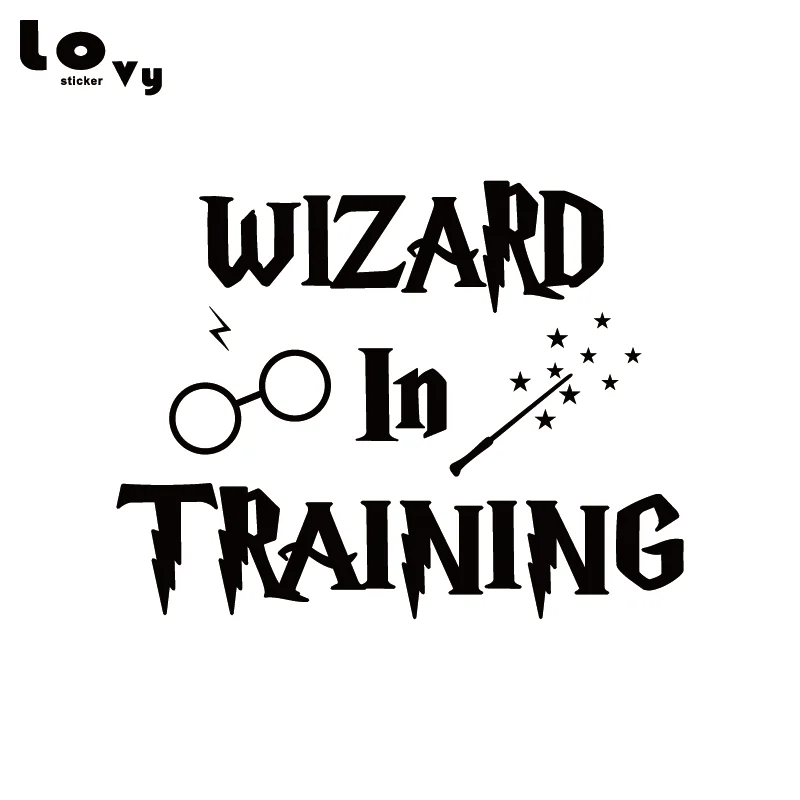
Font Harry Potter Words
In The Wizarding World of Harry Potter, customisable Hogwarts Acceptance Letters are sold, with the individual's name printed, along with a list of school.
Font harry potter words. The Harry Potter fonts provide a surreal look and feel to them and represent a magical side of things It is commonly used to grab attention and create a fascinating and captivating effect for the reader Very often used as a common font for web designs that are based for children and young teens who are fans of the series. The lumos is a harry potter font shows the area nears the lake of Hogwarts in the picture These fonts can be a very interesting choice to make a document Download Harry Potter Font The red magic car of Mr Weasley is shown in the image where the example of this harry potter font is given The weasley fans go and use this font wherever you. From elegant and enchanting to scribbled and scrawly, these Harry Potter fonts will elevate your design more than if you cast wingardium leviosa 1 Wizard World Starting the list off strong, Wizard World is what a lot of people want in a Harry Potter font It’s elegant, legible, and made for headings and sections.
Harry Potter Font This font is as close as it can get to the Harry Potter style of art, both in books and in adapted movies Lightningstyle edges and Gothic theme makes the Harry Potter Font looks like it is straight out of the magical world. Free Harry Potter fonts Fonts comby Fonts When it comes to text messages and emails, we usually interpret all capital letters, known as all caps, as YELLING But setting your headlines, leads, and short pull quotes in all caps can punch up your layouts, and get a hold of your readers It adds another level of typographic hierarchy too. A link to an external website find harry potter's font to write in the microsoft office word!!!!!.
Harry Potter fonts text generator To design titles and short text passages, a text generator also does the job fontmeme provides such a text generator which we used to create the above Harry Potter lettering The font size and effect can be adjusted The text generator delivers an image which can be saved as a PNG file and embedded on. Also see these harry potter fonts, harry potter logo font and harry potter fonts to get more graphic material about font After download among them, we can add anything we like I hope this Harry Potter Word Font collection can bring you much creativity and useful for advanced development. Harry Potter Font Generator Harry Potter font here refers to the font used in the Harry Potter novel series Harry Potter is a novel series written by the British author J K Rowling.
Design your own Harry Potter logo for free Login Pricing Fonts Logos Choose logo > Edit Text > Customize > Done!. Harry potter font from 1001fonts, free for commerical, if in doubt you can go to this link for copyright, font generator is for preview use only #View Information. Words, spells, charms, curses, artefacts and objects from the Harry Potter books Comments Log in or sign up to get involved in the conversation It's quick and easy kewpid commented on the list harrypotterwords2 Engorgio list!.
Harry P Font dafontcom English Français Español Deutsch Italiano Português Login Register Themes New fonts Authors Top Forum FAQ Submit a font Tools 23 matching requests on the forum Harry P Custom preview Size Harry P by Phoenix Phonts in Fancy > Various 5,052,498 downloads (3,031 yesterday) 123. Download Harry Potter font for Windows, Mac, Android View Harry Potter font information, font preview, character sets. I've downloaded various Harry Potter fonts but they all seem to come in TTF format which won't let you actually use the writing It just seems to open in up in a page which looks like 'Microsoft Notes' I'd like to be able to use the font in a Word document to make an invitation.